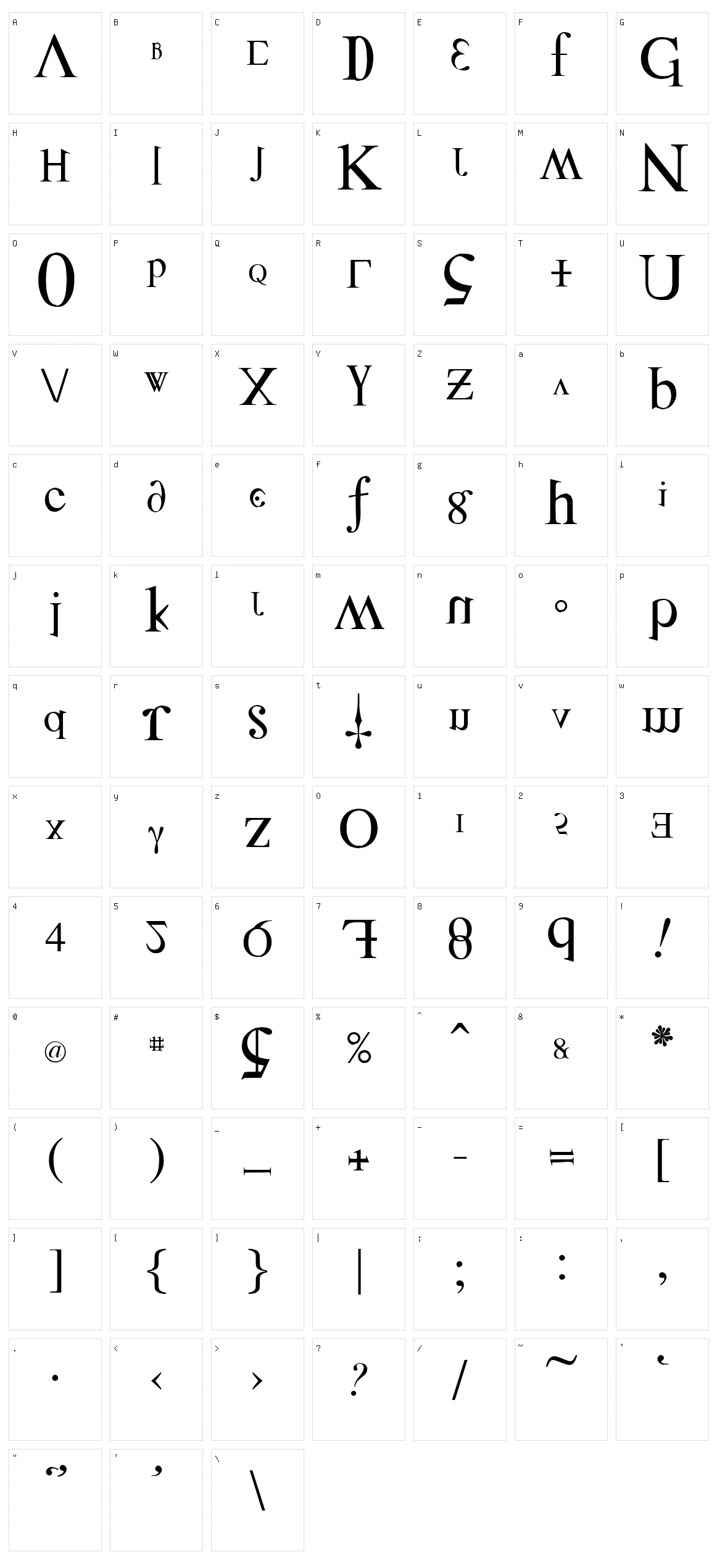
The free font Distorted Faith is carefully designed by uZiMweB, showcasing a thoughtful balance of creativity and usability and belongs to the Gothic font family. When you download the ZIP file, it contains only 45.55 KB of font files, making it lightweight and quick to download. Please review the license details below to understand permitted usage and distribution rights. If license information is not available, we recommend using this font for personal projects only or contacting the author directly for commercial usage permissions.